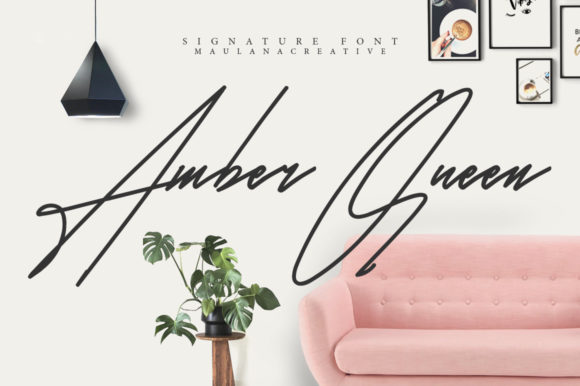
Amber Queen: The Script Font Your Small Business Needs
When you run a small business, every visual choice you make shapes how customers see you. Your font selection might seem like a small detail, but it can either elevate your brand or make it look amateurish. Amber Queen is a script font that strikes a rare balance: it carries the elegance of calligraphy while feeling current and approachable. For entrepreneurs who want to stand out without sacrificing professionalism, this typeface offers a practical way to unify logos, packaging, social media, and printed materials.
What Makes Amber Queen Stand Out
Amber Queen belongs to the Script Amp category of fonts, meaning it’s designed with flowing, connected letters that mimic natural handwriting. But unlike many script fonts that feel overly decorative or dated, Amber Queen keeps a clean, contemporary edge. Its strokes are deliberate but not fussy, with subtle variations in thickness that add depth without overwhelming the reader. This font works well for business owners who want to convey warmth, creativity, and a touch of luxury—whether you run a boutique bakery, a handmade candle shop, or a coaching practice.
The personality of Amber Queen is confident yet friendly. It doesn’t scream for attention; instead, it invites people to look closer. That makes it ideal for businesses that rely on emotional connection, like wedding planners, artists, or organic skincare brands. When you use Amber Queen, your materials feel handcrafted, which builds trust with customers who value authenticity.
Practical Ways to Use Amber Queen in Your Business
One of the best features of Amber Queen is its versatility. It works across a wide range of customer-facing materials without losing its charm. Here are some realistic applications for small business owners:
Logos and Brand Marks
Your logo is often the first thing people remember about your brand. Amber Queen can become the centerpiece of your logo when used for your business name. For a bakery called “Flour & Honey,” the script lettering adds a homemade feel. For a beauty brand like “Velvet Rose,” it brings a romantic, premium quality. Keep in mind that script fonts work best when your business name is short or when you pair the font with a simple icon.
Packaging and Product Labels
Customers encounter your packaging before they even buy your product. Using Amber Queen on labels for candle jars, lotion bottles, or coffee bags instantly signals that your brand cares about details. Because the font is readable at moderate sizes, it works on both small stickers and larger boxes. For a handmade soap business, try Amber Queen for the product name and a clean sans serif for ingredients.
Menus, Flyers, and Business Cards
If you own a café or a boutique, printed materials are part of your daily operations. Amber Queen can be used for headings on menus—such as “Seasonal Drinks” or “Our Story”—to set a welcoming tone. On business cards, the font adds personality to your name or tagline. Just avoid using it for long blocks of text; reserve it for short phrases that need emphasis.
Digital Content: Social Media and Website Banners
Your online presence should feel as polished as your physical products. Amber Queen works beautifully in Instagram post titles, Pinterest graphics, and website hero banners. Because it’s a display font, it grabs attention in social media thumbnails and stories. For a coaching business, use it for quote images or webinar titles. For an online shop, apply it to sale banners or “New Arrival” headers.
Building a Consistent Brand Identity with Amber Queen
Using the same font across all your materials strengthens brand recognition. When customers see Amber Queen on your Instagram post, then later on your product tag, they subconsciously connect the two. Consistency makes you look organized and reliable—two traits that matter especially for small businesses competing with larger companies.
Start by choosing Amber Queen as your primary display font. Then apply it to all your key brand assets: logo, main website headline, packaging hero text, and social media covers. If you run a stationery shop, extend it to thank-you cards, gift tags, and order inserts. The repetition of the same elegant lettering builds a visual thread that ties everything together.
When to Use Amber Queen as a Display or Accent Font
Amber Queen is not a body text font. Its script style makes it best suited for headlines, logos, short phrases, and accent elements. For example, if you write a menu or brochure, use Amber Queen for the section titles (e.g., “About Us,” “Today’s Specials”) and pair it with a simple sans serif for the descriptions. This approach keeps your materials readable while still incorporating the font’s personality.
As an accent font, Amber Queen can highlight a single word inside a block of text. On your website, you might use it for your tagline or for words like “handmade,” “limited edition,” or “signature.” That small touch adds visual interest without compromising legibility.
Readability and Practical Considerations
Small business owners need to ensure their fonts work in real-world conditions. Amber Queen maintains good readability at medium to large sizes, but it can become harder to read on very small labels or mobile screens if the letter spacing is tight. Test your design on actual products and devices before printing a large batch. For tiny print—like ingredient lists or fine print—stick to a clear sans serif font.
On packaging, consider the material. Amber Queen prints well on matte papers and glossy labels, but avoid extremely thin strokes on textured surfaces where ink might bleed. For digital use, always check how the font renders on different screen sizes. A quick mockup on your phone will save you from surprise distortion.
Pairing Amber Queen with Other Fonts
No single font carries an entire brand on its own. To create a balanced identity, pair Amber Queen with a complementary typeface. Here are two practical pairing strategies:
- With a clean sans serif font – A modern sans serif like a simple geometric or humanist style provides contrast to the flowing script. Use the sans serif for body text, website paragraphs, and secondary information. This pair works well for a coffee brand or a boutique clothing label.
- With a refined serif font – If you want a more traditional or elegant look, match Amber Queen with a classic serif. Use the serif for subheadings and longer copy. This combination suits luxury products like perfumes, chocolates, or high-end stationery.
When pairing, ensure the fonts have similar x-heights and overall proportions. Avoid using two script fonts together, as that can feel cluttered. Stick to one expressive font and one neutral font for the best readability and visual harmony.
Testing Your Font Before Full Rollout
Before committing Amber Queen to all your brand materials, test it in real scenarios. Create a mockup of your product label, a social media post, and a business card. Show them to a few trusted customers or friends and ask for honest feedback. Is the font easy to read from a distance? Does it match the tone you want? Adjust the size, color, or letter spacing as needed. Testing saves you from expensive reprints and ensures your brand looks cohesive from day one.
If you’re working with a designer, provide them with the font file and clear guidelines on where to use it. Consistency depends on everyone applying the font correctly across different assets.
Licensing and Legal Use
Before you start using Amber Queen in your business materials, check the commercial font licensing agreement. Many script fonts require a separate license for use on products, packaging, merchandise, or templates you sell. If you are a freelance designer creating client work, verify that your license covers that usage. Buying a proper license protects you from legal issues and supports the font creator. For digital assets like social media templates or website themes, confirm if the license permits embedding or web use. When in doubt, contact the foundry or distributor for clarification.
Licensing is a straightforward step that small business owners sometimes overlook. It’s better to invest in the right license upfront than to change your entire brand later because of a legal problem.
Making Amber Queen Work for Your Brand
Amber Queen gives small business owners a chance to infuse their brand with personality without sacrificing professionalism. Whether you are launching a new product line, refreshing your packaging, or building a consistent online presence, this script font can become a reliable tool in your design toolkit. Start with small applications—a logo draft or a single label—and see how it feels. If it aligns with your brand’s voice, expand it across your website, stationery, and marketing materials. With thoughtful use and proper pairing, Amber Queen will help you communicate warmth, quality, and attention to detail in every customer interaction.